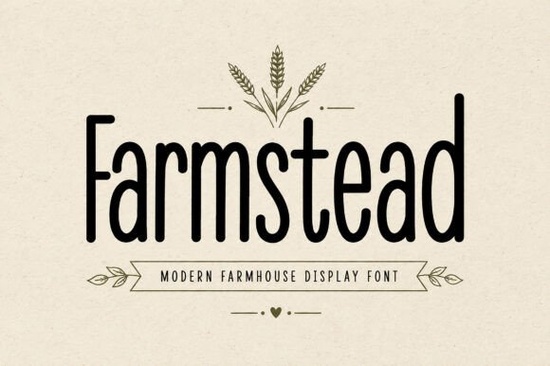
Farmstead Font is a versatile display font that brings a warm, rustic feel to any design project. Whether you're working on farmhouse signs, packaging for organic products, or social media graphics, this font offers a friendly and authentic look that complements a wide range of creative needs. Its clean letterforms and handcrafted style make it ideal for both digital and print applications.
Designed with modern farmhouse aesthetics in mind, Farmstead Font blends simplicity with character. The font features uppercase and lowercase letters, numbers, and punctuation, making it easy to use across different design formats. It also supports multiple languages, which is helpful for international projects or multilingual branding efforts. The readability of the font ensures that even small text remains clear and legible without losing its charm.
If you're looking for a font that adds a cozy, handmade touch to your work, Farmstead is an excellent choice. It’s particularly well-suited for bakery branding, café logos, wedding décor, and labels for honey, jam, or baked goods. Its versatility makes it a go-to option for crafters, small business owners, and designers who want to maintain a consistent, inviting visual identity.
What Makes Farmstead Font Stand Out?
Farmstead Font stands out due to its unique balance between rustic appeal and modern usability. Unlike some fonts that lean too heavily into one style, this typeface maintains a clean and professional look while still feeling approachable and personal. This makes it perfect for businesses that want to convey authenticity without sacrificing clarity.
The font’s design is especially effective for projects that require a sense of warmth and familiarity. For example, farmers market branding can benefit from its friendly appearance, as it helps create a welcoming atmosphere for customers. Similarly, tote bags, mugs, and other merchandise can be enhanced with this font to give them a more personalized and artisanal feel.
Its adaptability extends to digital platforms as well. Social media graphics, website headers, and email newsletters can all be improved with the right typography. Farmstead Font ensures that your message comes through clearly while maintaining a cohesive aesthetic that aligns with your brand’s values.
Who Can Benefit from Using Farmstead Font?
Farmstead Font is ideal for a variety of users, including graphic designers, crafters, and small business owners. If you run a bakery, café, or handmade product shop, this font can help you create visually appealing branding that reflects your brand's personality. It’s also useful for print-on-demand sellers who want to offer unique designs that stand out in a competitive market.
Crafters using Cricut machines or SVG projects will find that Farmstead Font works well with their tools. Its clean lines and structured layout make it easy to cut and apply to various materials, whether you're making signs, stickers, or custom decorations. The font’s readability ensures that even intricate details remain sharp and clear after cutting.
For those involved in wedding design, Farmstead Font can add a touch of elegance and tradition to invitations, signage, and other stationery. Its rustic style pairs well with natural themes, making it a great choice for couples looking for a down-to-earth yet polished look.
How to Use Farmstead Font Effectively
To get the most out of Farmstead Font, consider the context in which it will be used. For instance, if you’re designing a sign for a farm store, using the font in larger sizes with bold weights can help it stand out. On the other hand, for smaller text like labels or product descriptions, a lighter weight may be more appropriate to maintain readability.
Pairing Farmstead Font with other complementary fonts can also enhance your overall design. For example, combining it with a sans-serif font for body text can create a balanced and professional look. Experimenting with different color schemes can further highlight the font’s character and make your designs more engaging.
Before finalizing your design, take a moment to review how the font looks in different formats. Test it on paper, screens, and various devices to ensure it meets your expectations. Making small adjustments can have a big impact on the overall effectiveness of your work.